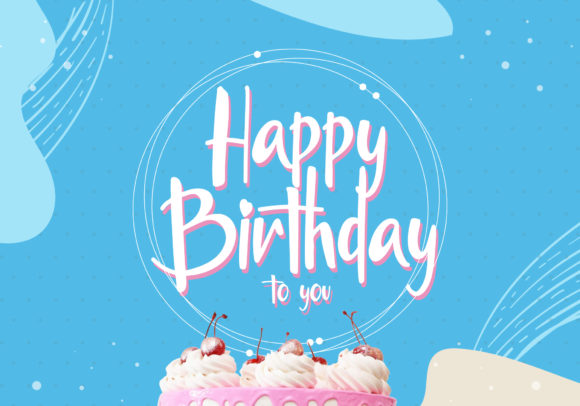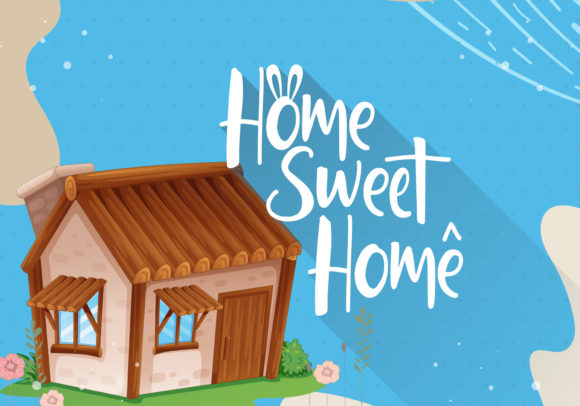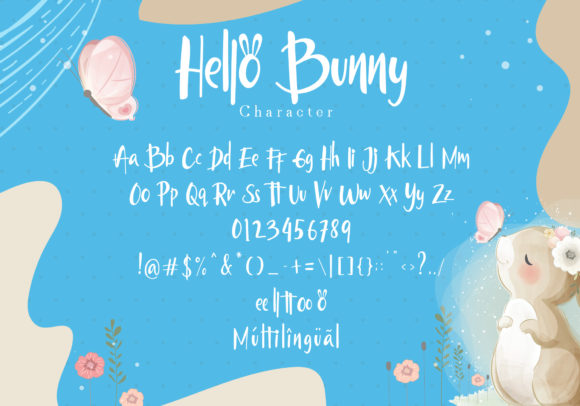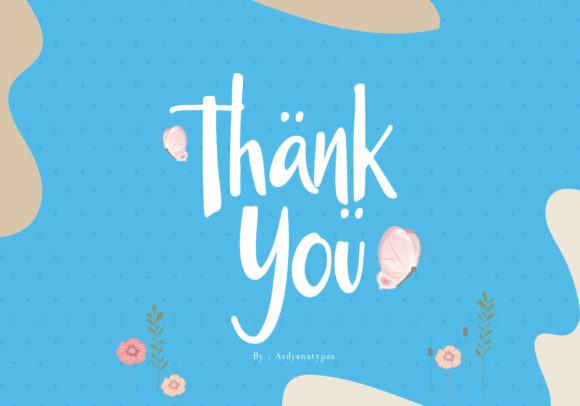
Hello Bunny Font: A Cheerful and Delightful Handwritten Display Font
Hello Bunny is a cheerful and delightful handwritten display font with a dynamic style that is sure to capture the attention of designers and crafters alike. With its contemporary charm, this font is perfect for a variety of creative projects, from branding and advertising to crafting and DIY tutorials.
What Makes Hello Bunny Font So Special?
Hello Bunny Font is a unique and eye-catching font that stands out from the crowd. Its handwritten style gives it a personal and friendly feel, making it perfect for projects that require a touch of warmth and personality. The font’s dynamic style adds a level of sophistication and elegance, making it suitable for a wide range of applications.
Key Features of Hello Bunny Font
• Handwritten style: Hello Bunny Font has a beautiful, handwritten style that gives it a personal and friendly feel.
• Dynamic style: The font’s dynamic style adds a level of sophistication and elegance, making it perfect for a variety of creative projects.
• Contemporary charm: Hello Bunny Font has a modern and trendy feel that is sure to appeal to designers and crafters who are looking for a font that is both stylish and unique.
• Versatile: This font is perfect for a wide range of applications, from branding and advertising to crafting and DIY tutorials.
How to Use Hello Bunny Font in Your Projects
Hello Bunny Font is a versatile font that can be used in a variety of creative projects. Here are a few ideas to get you started:
• Branding and advertising: Use Hello Bunny Font to create eye-catching logos, advertisements, and marketing materials that are sure to grab the attention of your target audience.
• Crafting and DIY tutorials: Add a personal touch to your crafting and DIY tutorials with Hello Bunny Font. Use it to create titles, headings, and other text elements that are both informative and visually appealing.
• Social media graphics: Use Hello Bunny Font to create social media graphics that are both stylish and engaging. Perfect for creating Facebook posts, Instagram stories, and other social media content.
• Stationery and invitations: Add a touch of elegance and sophistication to your stationery and invitations with Hello Bunny Font. Perfect for creating custom wedding invitations, birthday cards, and other special occasion stationery.
Tips for Getting the Most Out of Hello Bunny Font
Here are a few tips for getting the most out of Hello Bunny Font:
• Experiment with different colors: Hello Bunny Font looks great in a variety of colors. Experiment with different colors to find the one that works best for your project.
• Play with font sizes: The font’s dynamic style makes it perfect for use at a variety of font sizes. Experiment with different font sizes to add visual interest to your project.
• Combine with other fonts: Hello Bunny Font pairs well with a variety of other fonts. Experiment with combining it with other fonts to create a unique and visually appealing look.
Hello Bunny Font is a cheerful and delightful handwritten display font with a dynamic style that is sure to capture the attention of designers and crafters alike. With its contemporary charm and versatile design, this font is perfect for a wide range of creative projects. Whether you’re looking to create branding and advertising materials, crafting and DIY tutorials, or social media graphics, Hello Bunny Font is a great choice.
Get Inspired by Hello Bunny Font